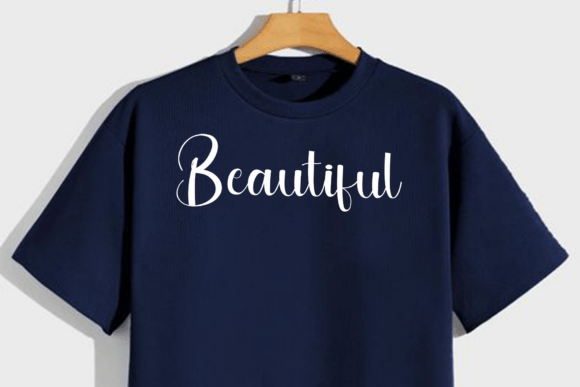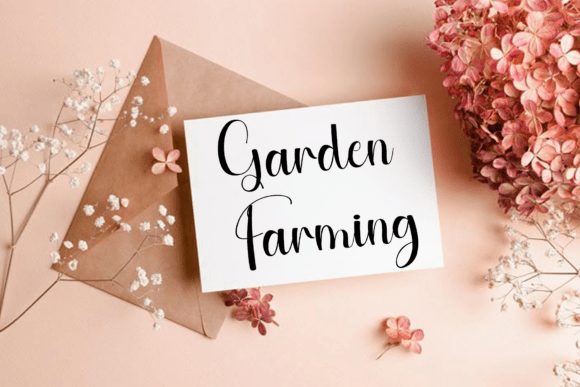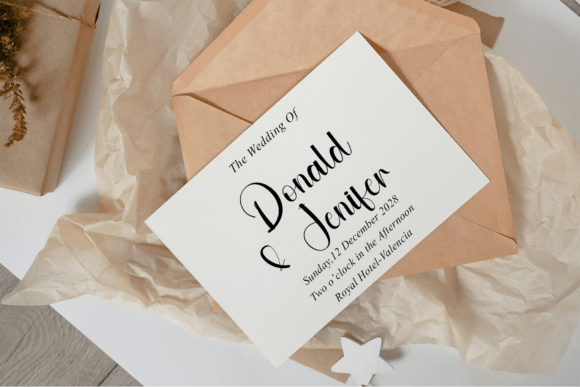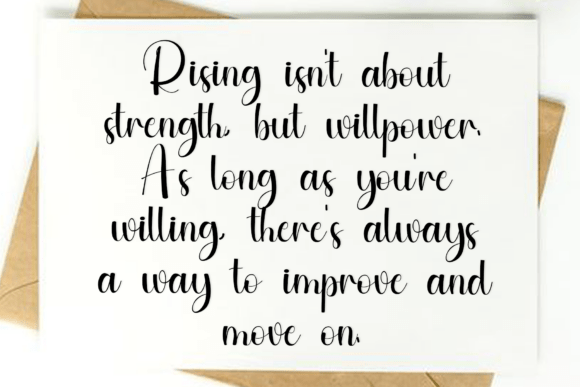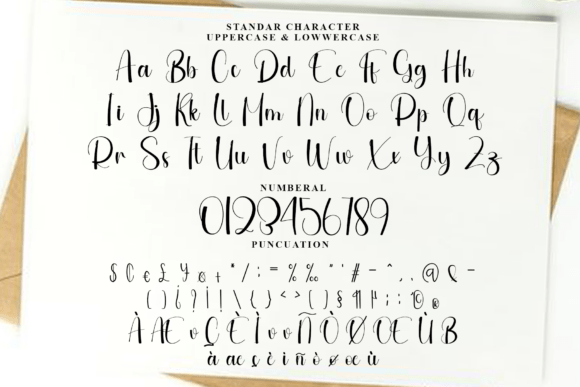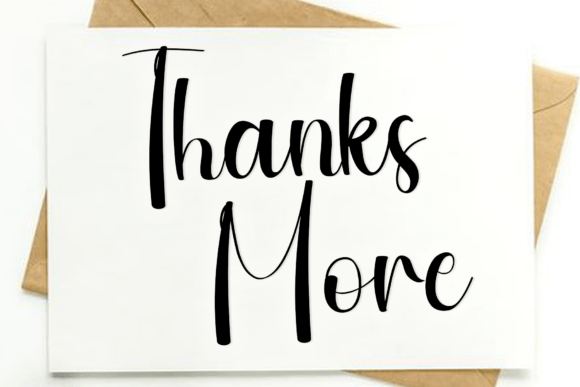
Introduction to Frame Mockups Font
As a designer, there’s nothing quite like the thrill of stumbling upon a new font that perfectly captures the essence of your creative vision. It’s that moment when the perfect words start flowing, and your project comes to life in a way you never thought possible. For me, that moment happened when I discovered the Frame Mockups Font – a unique and professional entry into the modern handwritten collection that’s left me in awe.
With its tall, thin strokes and subtle, airy slant, Frame Mockups Font offers a refined aesthetic that feels as fresh as a mountain breeze. Whether you’re working on a travel photography project, branding for outdoor gear, or sophisticated web design, this font is sure to elevate your creative project to the next level. And the best part? It’s a valuable resource for designers looking for a high-quality, free download with a transparent background – making it the perfect addition to any design arsenal.
Key Features of Frame Mockups Font
- High-quality design resource for creative projects, ideal for designers and artists looking for a unique and stylish font.
- Features a transparent background, making it easy to overlay on images or other design elements without any unwanted background noise.
- Designed with a modern and sleek aesthetic, perfect for use in graphic design, web design, and digital art projects.
- Unique characteristics include a bold and playful style, with intricate details and textures that add depth and visual interest to your designs.
Honest Review: Frame Mockups Font
As a designer, I’m always on the lookout for high-quality resources to enhance my creative projects. Recently, I came across Frame Mockups Font, and I must say it’s been a game-changer for me.
Here’s what I love about Frame Mockups Font:
- ✨ The transparent background feature makes it easy to overlay on any image or design.
- ✨ The font is incredibly versatile and can be used for a wide range of creative projects.
- ⚠️ The font is not as customizable as I would like, which can be a bit restrictive for designers who like to get creative with their typography.
Overall, I’m really impressed with Frame Mockups Font. While it may have some limitations, the benefits far outweigh the drawbacks. It’s a great addition to any designer’s toolkit, and I highly recommend it for anyone looking for a high-quality, free design resource.
Frame Mockups Font
For the best results, use the Frame Mockups Font on a transparent background to create a clean and modern design. This font is ideal for creative projects, such as social media graphics, business cards, and marketing materials. You can also use the font to create a free download template, such as a flyer or brochure.